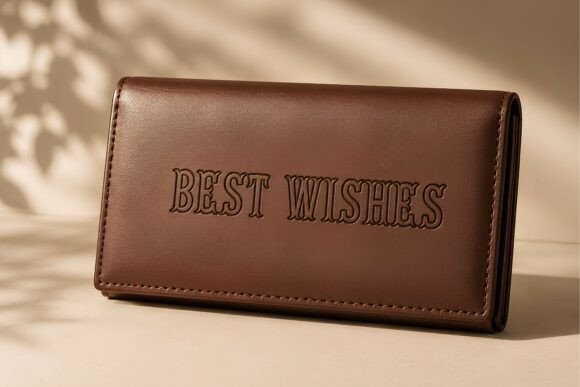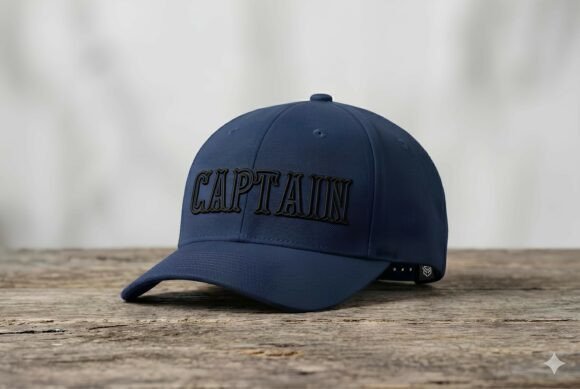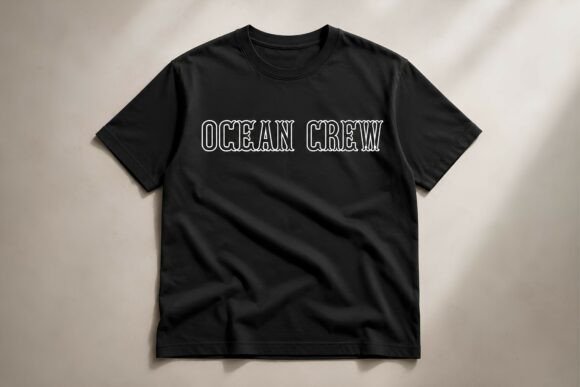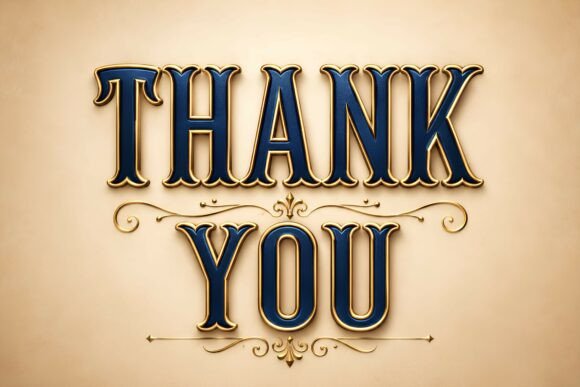
The Fisherman Monogram Font: A Timeless Choice for Creative Projects
I’ll never forget the design project that led me to discover the Fisherman Monogram font. I was working on a luxury branding project for a high-end outdoor apparel brand, and I needed a font that would convey a sense of sophistication, elegance, and adventure. After hours of searching through font libraries and testing various typefaces, I stumbled upon Fisherman Monogram. Its bold, uppercase letterforms and elegant curves immediately caught my attention, and I knew I had found the perfect fit.
A Personal Review: What I Love and What to Consider
- ✅ Timeless elegance: Fisherman Monogram has a classic, vintage feel that adds a touch of sophistication to any design project.
- ✅ Highly readable: The font’s bold letterforms and elegant curves make it easy to read, even at smaller sizes.
- ✅ Versatile: Fisherman Monogram works well for a variety of design projects, from luxury packaging to logos, invitations, and editorial headlines.
- ✅ Distinctive character: The font’s decorative structure gives each letter a unique personality while maintaining a balanced and professional appearance.
While Fisherman Monogram is an excellent font, there are a few things to consider:
- 🤔 Limited use of lowercase letters: As a display font, Fisherman Monogram is primarily designed for uppercase letters. While it does include some lowercase letters, they may not be as stylized or elegant as the uppercase forms.
- 🤔 May not work well for body text: Due to its bold and decorative nature, Fisherman Monogram may not be the best choice for body text or longer blocks of text.
The Story Behind Fisherman Monogram
Fisherman Monogram was designed with the goal of creating a timeless and elegant font that would evoke the classic feel of vintage typography. The designer’s inspiration came from traditional monogram fonts, which were often used for luxury branding and formal invitations. By combining bold uppercase letterforms with elegant curves and decorative details, the designer aimed to create a font that would add a touch of sophistication to any design project.
Q: What type of projects is Fisherman Monogram best suited for?
A: Fisherman Monogram is ideal for luxury branding, packaging, logos, invitations, signage, merchandise, posters, and editorial headlines.
Q: Can I use Fisherman Monogram for body text?
A: While Fisherman Monogram is a beautiful font, it may not be the best choice for body text due to its bold and decorative nature. It’s better suited for titles, headings, and short blocks of text.
Q: Does Fisherman Monogram include OpenType features?
A: Yes, Fisherman Monogram includes OpenType features, such as glyphs and stylistic alternates, which can be accessed in compatible design software.